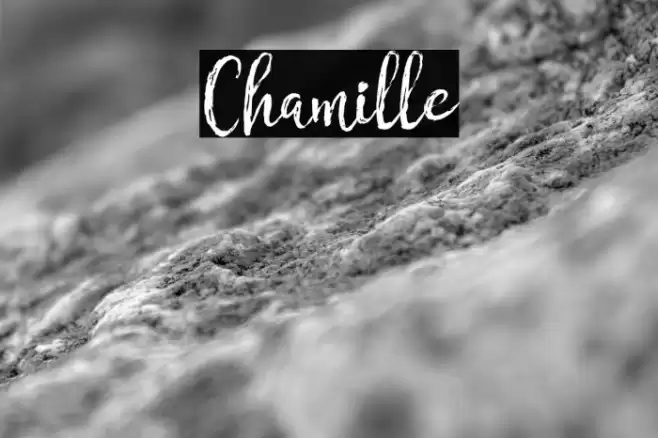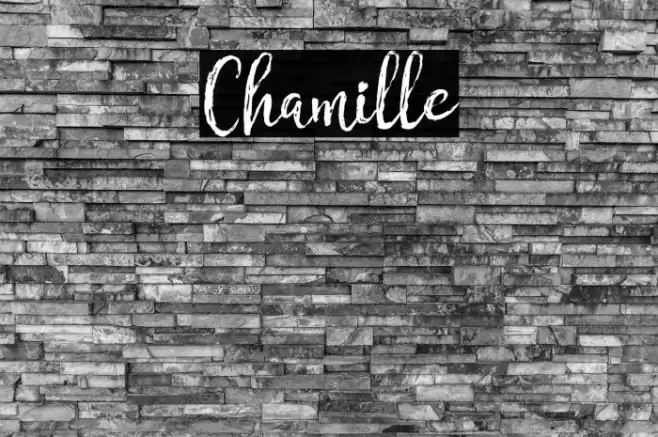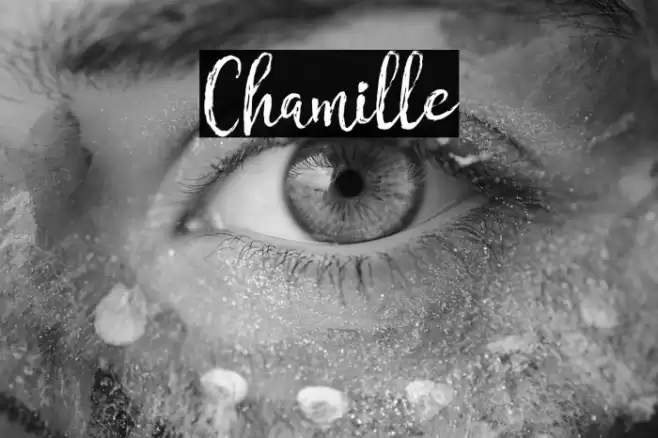
Chamille Font
Chamille Description
This font exudes a lively and artistic flair, characterized by its brush-like strokes that give it a handcrafted appearance. The letters are fluid and dynamic, with varying thickness that adds a sense of movement and energy. The uppercase letters are bold and prominent, while the lowercase letters maintain a consistent flow, enhancing the font's overall cohesiveness. The numbers and special characters are equally expressive, maintaining the same brushstroke style. This font is perfect for projects that require a personal touch, such as invitations, greeting cards, or artistic branding.
A lively, brush-style font with dynamic, handcrafted strokes from Regular fonts.
- Proposed Projects: Ideal for invitations, greeting cards, artistic branding, and creative projects.
- Overall Style: Artistic
- Use Case: Logos, Headlines, Artistic projects